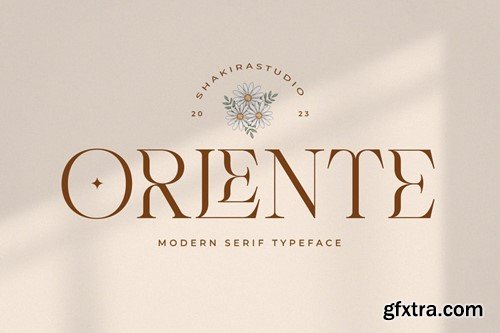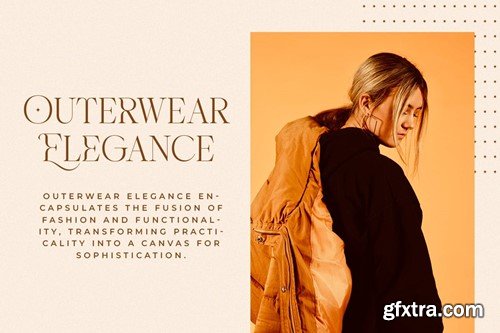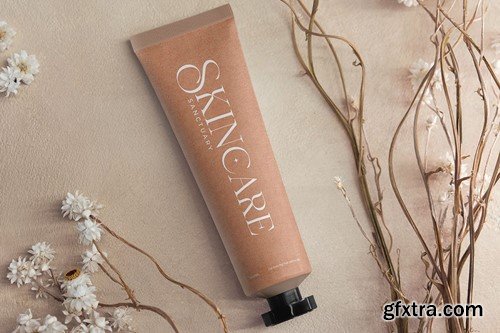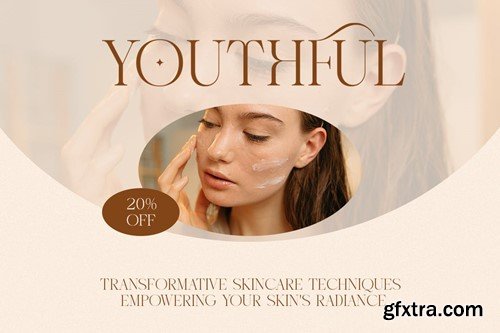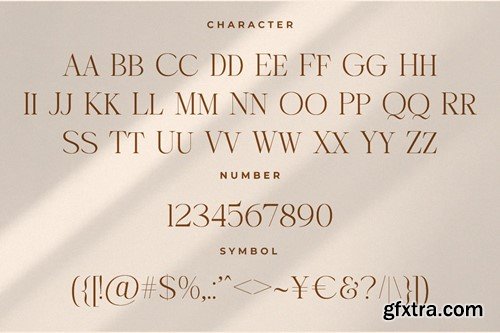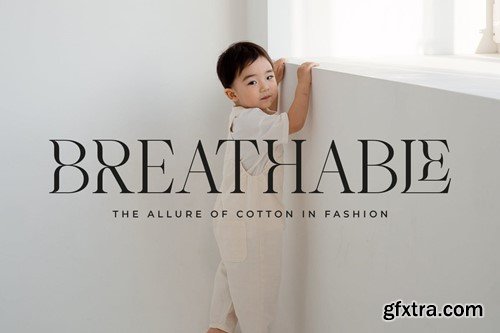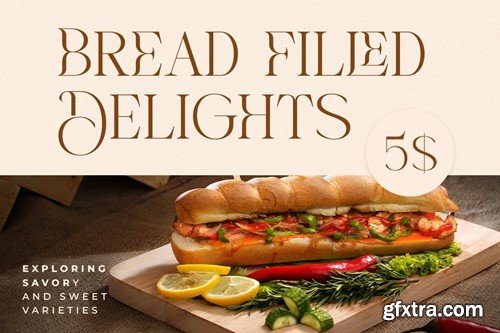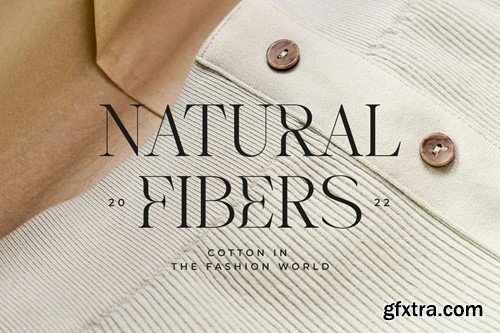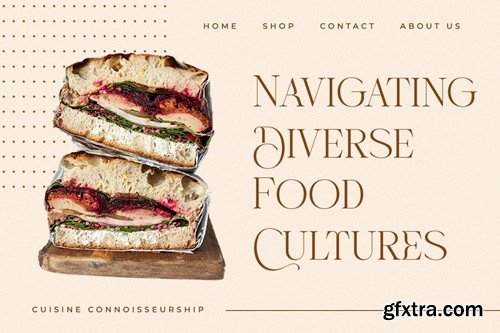
奥尔令特 - 现代衬线字体 EKLQVPL
Introducing "Orlente" a font that redefines modern elegance within the realm of Serif Fonts. Immerse your designs in a world of sophistication with this contemporary typeface. "Orlente" stands out as a beacon of luxury, featuring a rich variety of alternates and ligatures that infuse your projects with a sense of opulence and stylish finesse. Each curve and contour of "Orlente" is meticulously crafted to capture the essence of modernity while maintaining an air of luxury. Elevate your typographic expression with the diverse and stylish features of "Orlente," setting a new standard for modern Serif Fonts in the current design landscape. This font is not just a static typeface; it's a dynamic expression of your design narrative. Nomadic Dreams is perfect for editorial design, branding, invitations, or any project where the seamless integration of modernity and classic elegance is paramount. Here's what you get: Multilingual character supports : (Afrikaans, Albanian, Catalan, Croatian, Czech, Danish, Dutch, English, Estonian, Finnish, French, German, Hungarian, Icelandic, Italian, Lithuanian, Maltese, Norwegian, Polish, Portuguese, Slovenian, Spanish, Swedish, Turkish, Zulu) Follow my shop for upcoming updates, and for more of my work, Thank you!